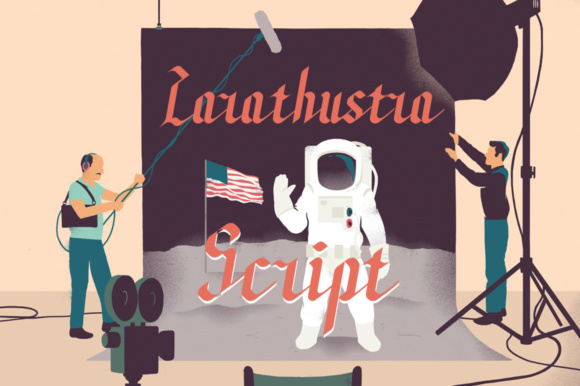
Unleash your creativity with the Zarathustra Script Font, the crown jewel of script fonts, meticulously crafted by the visionary Etewut. Let your imagination soar as you embark on a creative journey with this captivating font, designed to infuse your projects with a touch of whimsy and charm.
Immerse yourself in the world of calligraphy and blackletter as the Zarathustra Script Font dances across your screen, weaving tales of enchantment and intrigue. Adorn your designs with an aura of elegance and boldness, making your words leap off the page with a life of their own.
Whether you're conjuring eye-catching logos, crafting captivating social media posts, or weaving enchanting invitations, the Zarathustra Script Font stands as your trusted companion, adding a dash of magic to every endeavor. Its versatile nature knows no bounds, adapting seamlessly to a myriad of projects, bringing forth a symphony of creative possibilities.
With the Zarathustra Script Font as your creative ally, unlock a world of boundless expression, where your imagination reigns supreme. Seize this opportunity to transform your designs into captivating masterpieces, leaving an indelible mark on the hearts of your audience.
Let the Zarathustra Script Font ignite the spark of creativity within you, propelling your projects to new heights of brilliance. Embrace the allure of this extraordinary font and watch as your creative vision takes flight.